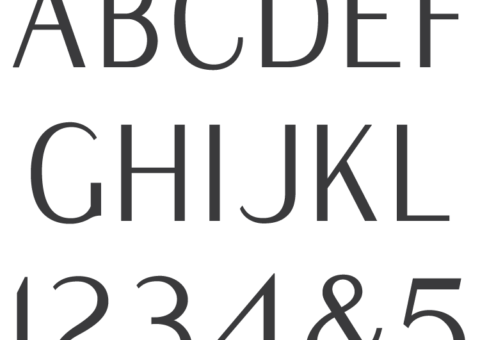
MLC Signature Series Modified Roman Sans
A digital Sans Serif Modified Roman font based on the Spacerite Modified Roman alphabet with the serifs removed. Both OpenType and TrueType formats included with the download.